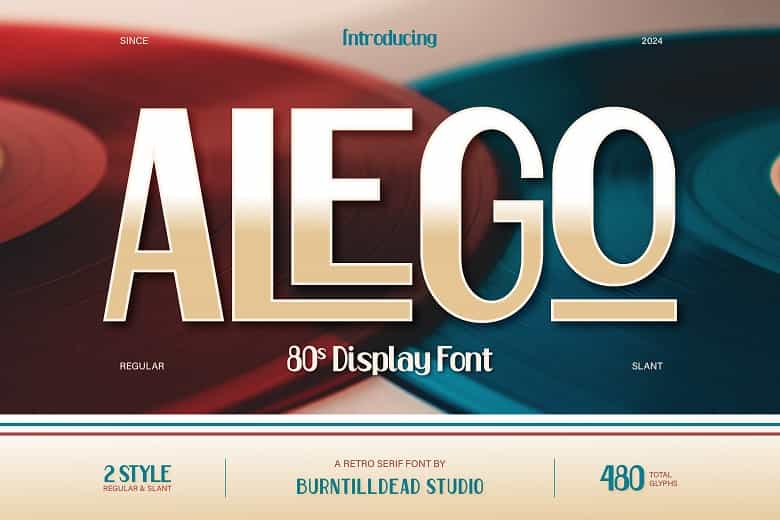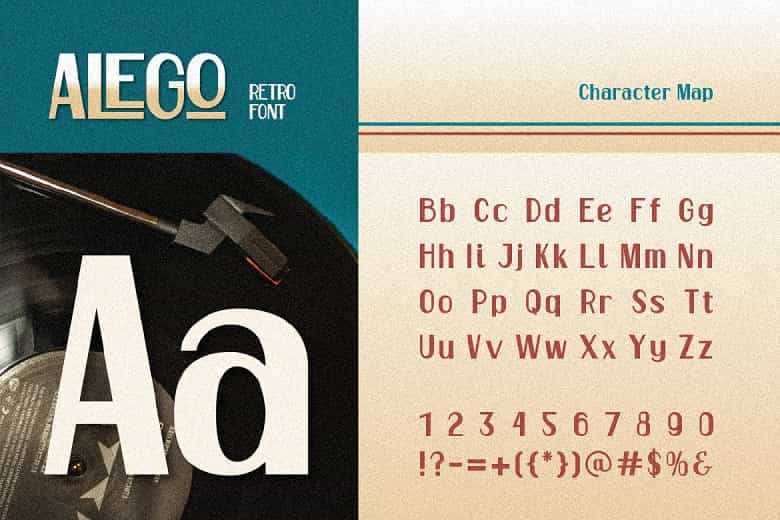
Alego is our display retro font with the delightful san serif motifs on it. It can be described as a bold, simple, minimalistic font as well as nostalgic. It is ideal for use in designing headlines, logos, posters and any other design that require to have that old look and king of style.